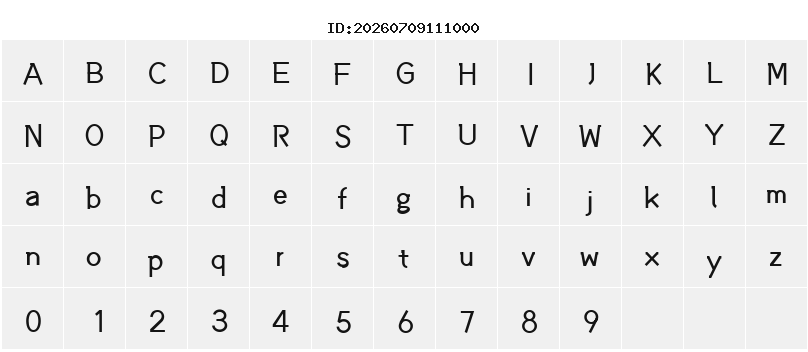
站酷文艺体 Preview
• Designer: 刘兵克
About 站酷文艺体.ttf
站酷文艺体.ttf is a modern, elegant sans-serif font designed for ultimate readability and visual harmony. Perfect for branding, headlines, web design, and print materials.